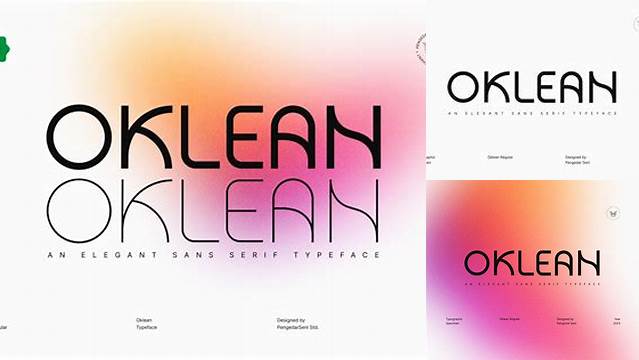
Oklean Font: Free Download & Design Guide
Hey everyone! Today, we're diving deep into the world of typography with a focus on the Oklean elegant sans serif font. If you're on the hunt for a clean, modern, and versatile font for your design projects, you're in the right place. We'll explore everything you need to know about Oklean – from where you can snag a free download to how you can use it to create stunning visuals. Let's get started! Understanding the importance of font choice in design is crucial. The right font can make or break your project, conveying the right message and creating the desired impact. Oklean is a stellar choice for many projects. Its clean lines and modern aesthetic make it a perfect match for various design applications. Whether you're a seasoned designer or just starting out, Oklean is a fantastic font to add to your collection. Oklean's versatility allows it to be used in various scenarios. This makes it a valuable asset for any designer. In this guide, we'll cover all the essential aspects, ensuring you get the most out of this fantastic font. We'll provide you with a free download, explore its features, and offer practical design tips to help you create beautiful and engaging visuals. So, let’s get into the details and discover why Oklean is a must-have for your design toolkit. Get ready to elevate your design game with Oklean!
Oklean Font: What Makes It Special?
Oklean is more than just a font; it's a statement. Its elegant simplicity makes it stand out in a world of design. This is a clean, modern sans-serif font. Its sleek design gives off a sophisticated vibe, making it ideal for projects that need a contemporary touch. What makes Oklean special? First off, it has great legibility. Its clear letterforms ensure that your text is easy to read across different sizes and platforms. This is important for projects where readability is key, such as websites, presentations, and print materials. Secondly, Oklean's versatility shines through. It works well in a wide range of applications, from headlines and titles to body text and captions. This adaptability makes it a go-to font for various design projects. Furthermore, Oklean has a stylish aesthetic. Its clean lines and balanced proportions give it a polished and professional look. It's a great choice for branding, advertising, and any project where visual appeal is essential. Oklean's appeal is its simplicity and elegance. This allows your message to take center stage without any visual distractions. It's a font that blends in while still making a bold statement. Also, Oklean's design allows it to blend in with other elements. It's a font that can be used on any platform.
Key Features of the Oklean Font
Alright, let's delve into the features that make Oklean a top-tier choice. Oklean's features are crucial for any designer. First up, we've got its clean and minimalistic design. This design reduces visual clutter and enhances readability. The minimalistic approach is a cornerstone of modern design, making Oklean a natural fit for contemporary projects. This can make a difference when conveying important information. Next is the high readability, a crucial aspect of Oklean's design. Regardless of the size, the letters are easily distinguishable, ensuring your message is clear and concise. This is perfect for body text, where readability is paramount. Oklean supports multiple languages. This is an important feature for global projects. Oklean can support many languages. The font supports a vast range of characters. It accommodates various language requirements, enabling you to reach a wider audience. Moreover, Oklean's versatility is another standout feature. Oklean is versatile, making it the perfect choice for many projects. This font's ability to adapt to diverse design needs makes it a valuable asset. You can use it for everything, from headlines to detailed text. Finally, the elegant appearance. Oklean gives off a professional and stylish vibe. Its sleek lines and balanced structure elevate the overall visual experience. Oklean is a versatile font with clean lines and great readability. This makes Oklean ideal for various applications. This lets designers create impactful designs. Let's not forget about the free download aspect, making it accessible to everyone. Oklean gives value to everyone.